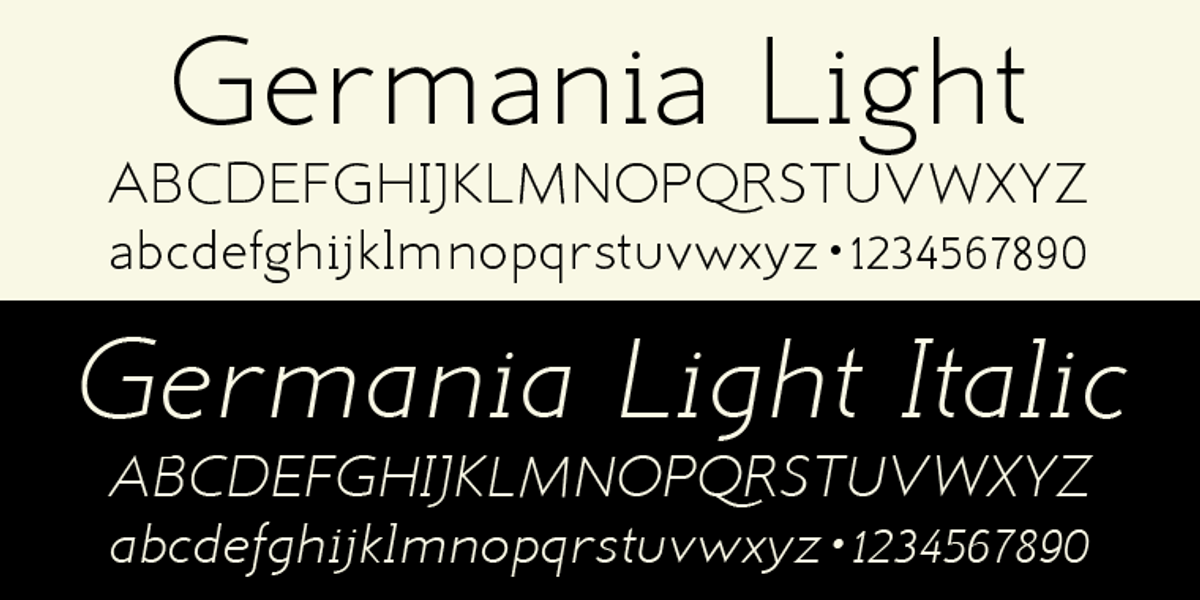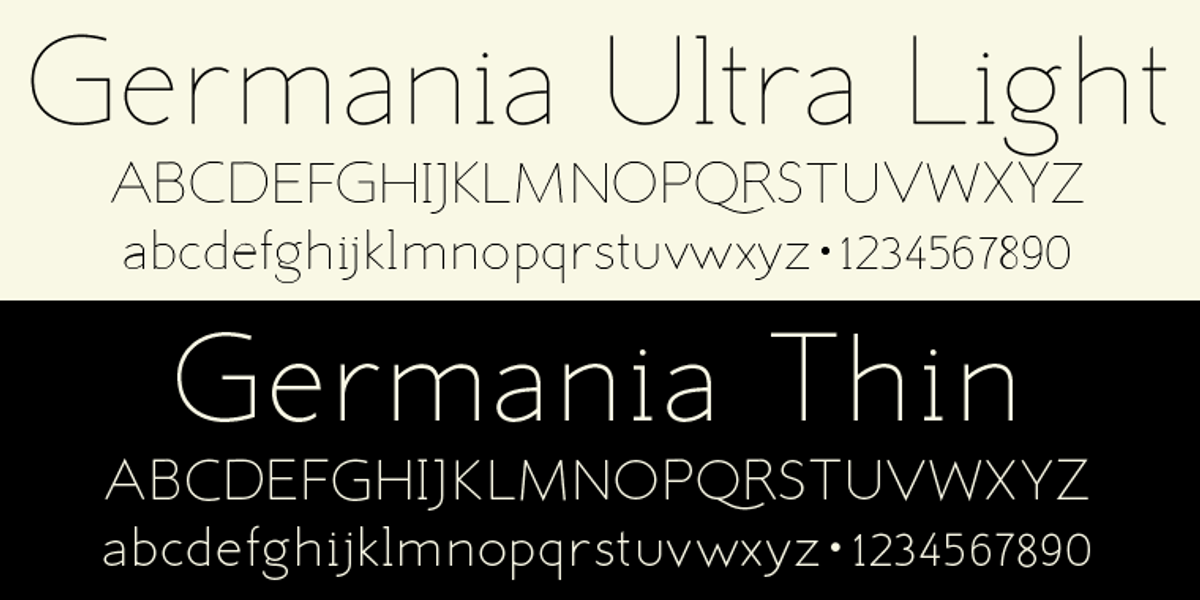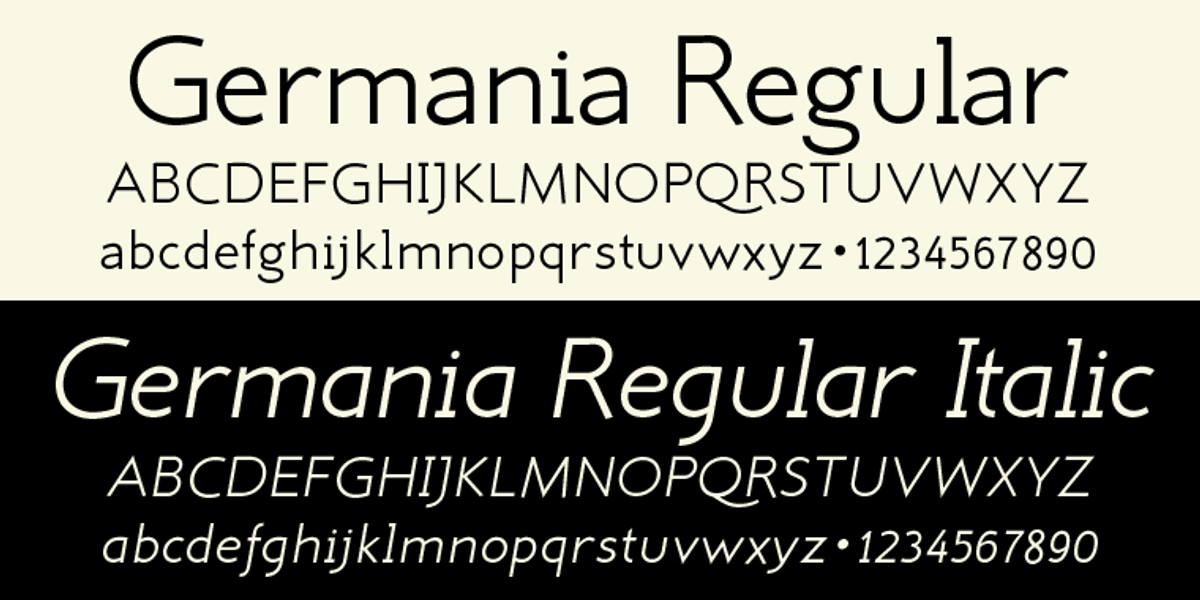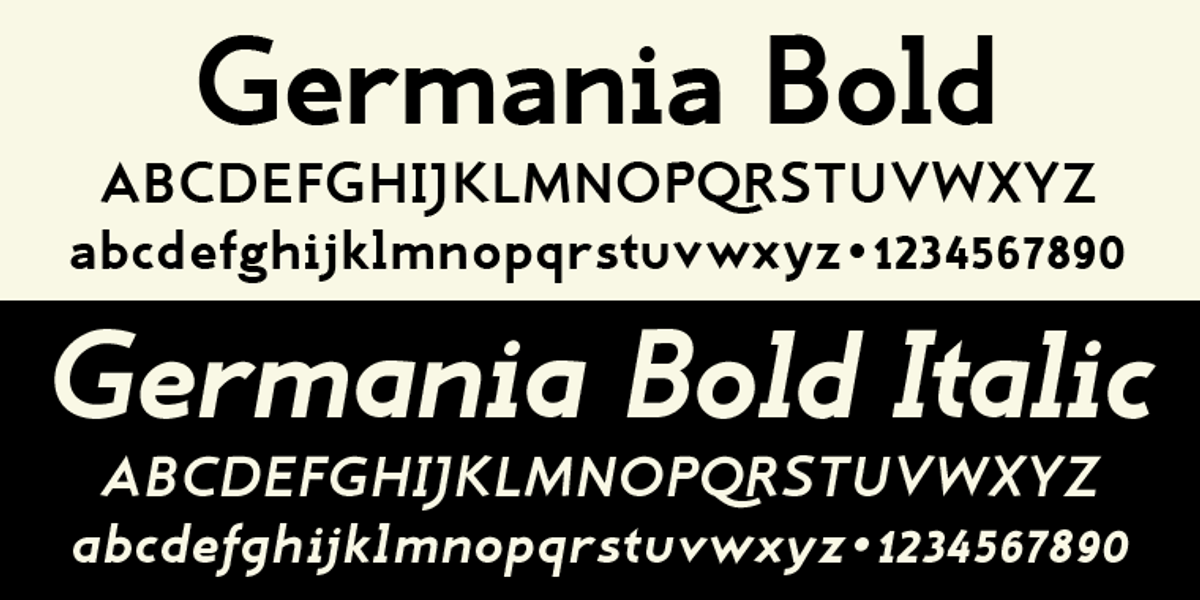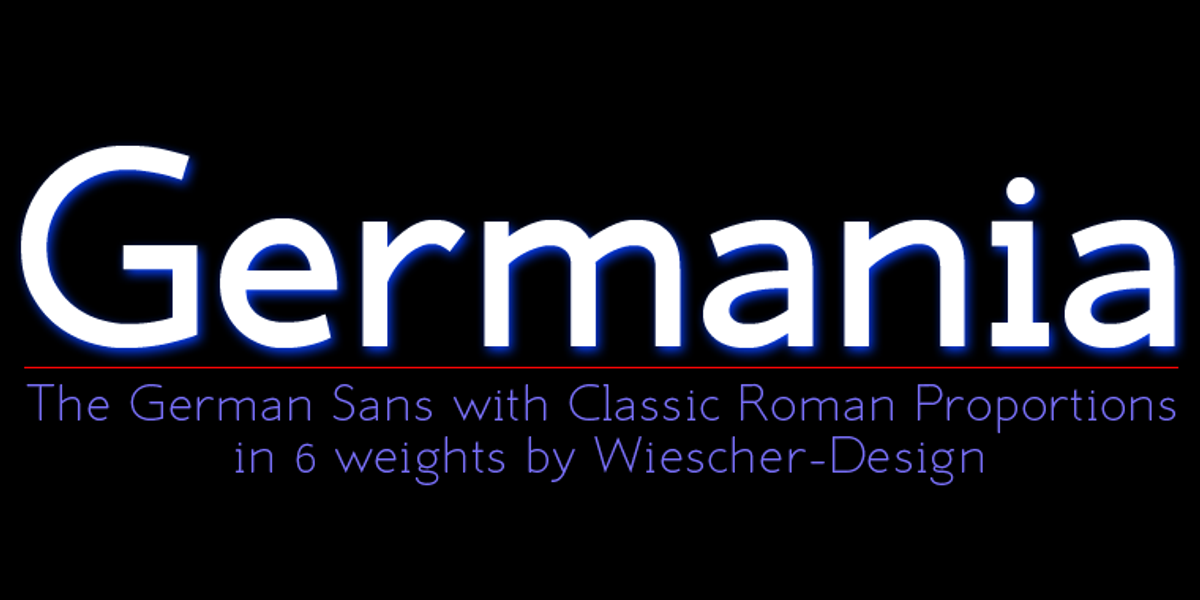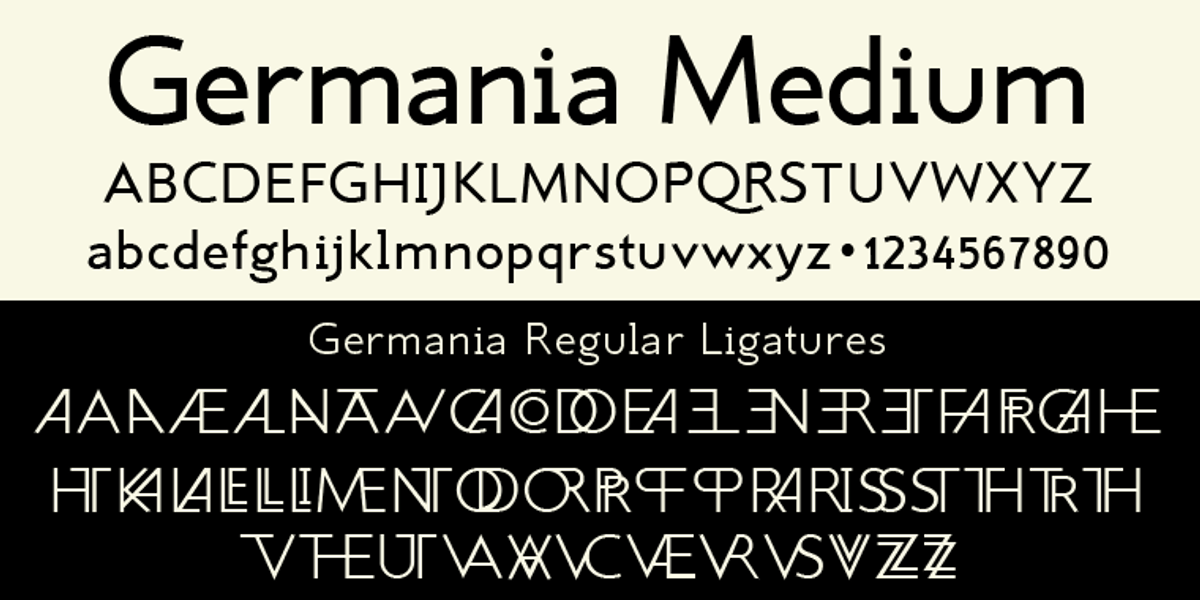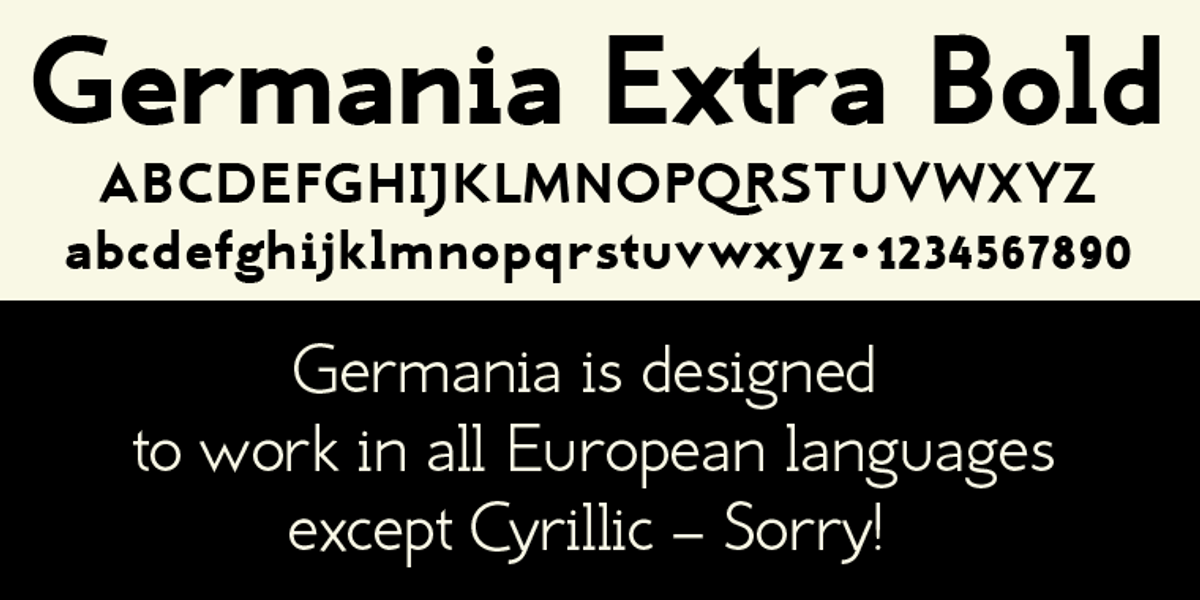
Germania
Germania is a sans serif font designed by Gert Wiescher. It draws inspiration from classic Roman proportions and forms but incorporates a distinct 'German' rigidity. The font features a monoline design with high contrast and includes three true italic styles (not simply slanted versions). Wiescher also adjusted stroke thicknesses in the lowercase letters a, e, f, g, and q. Germania is intended for paragraph text use due to its formal and conservative personality.